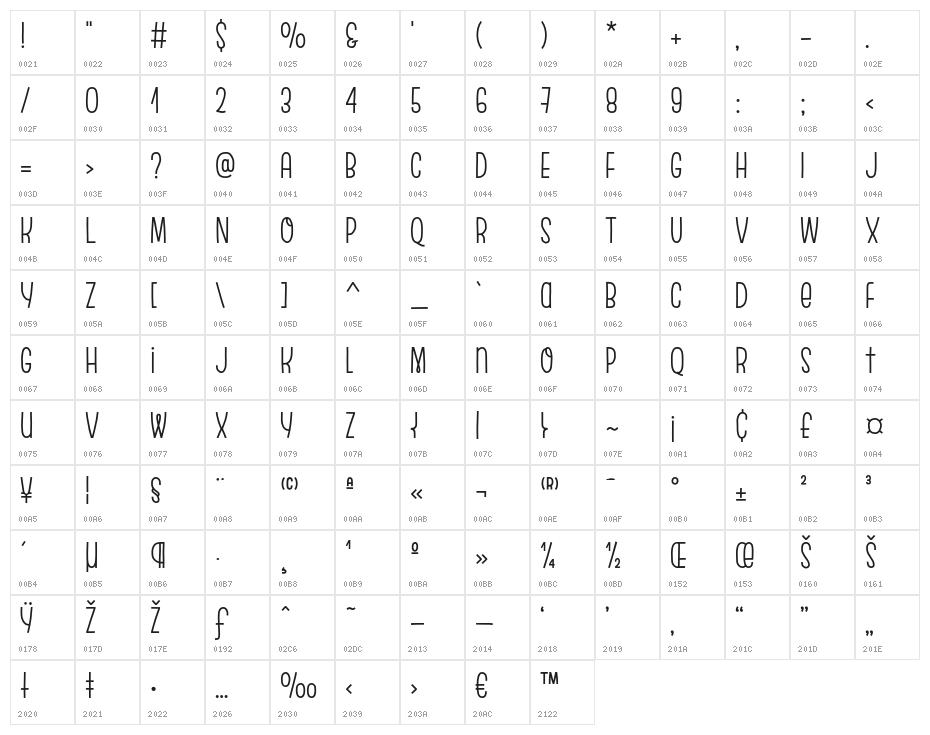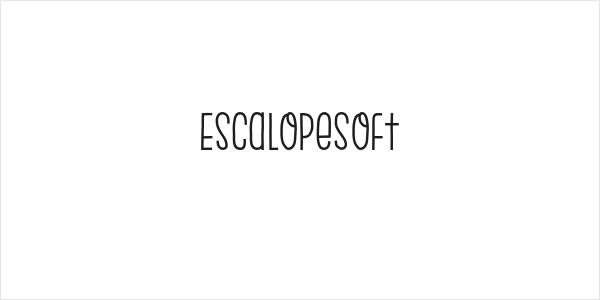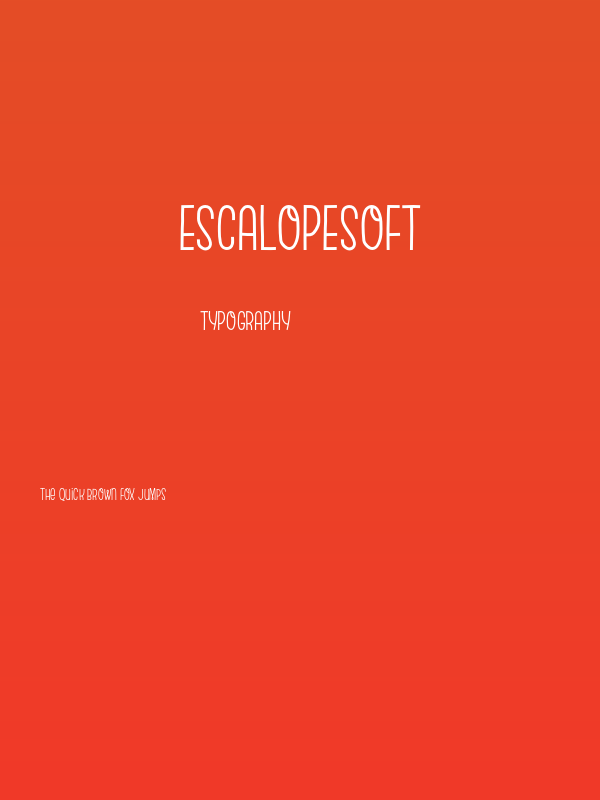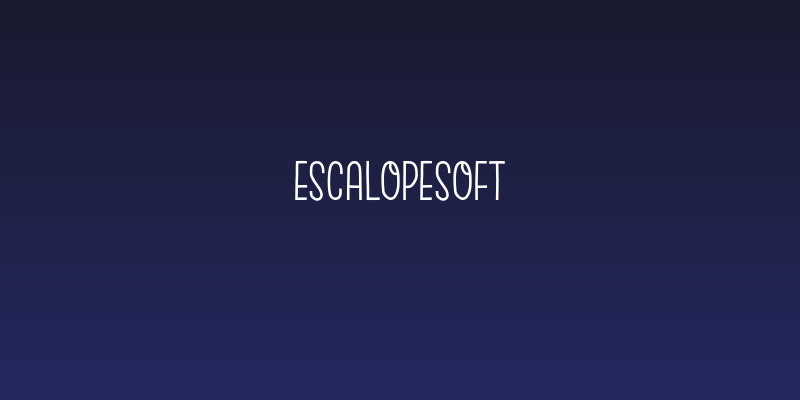
EscalopeSoft Font
EscalopeSoft Description
This font features a playful and modern design with elongated, narrow characters that give it a unique and stylish appearance. The uppercase letters are tall and slender, while the lowercase letters maintain a consistent height, creating a harmonious balance. The numbers are similarly elongated, adding to the cohesive look. The special characters are distinct and well-defined, ensuring clarity and readability. This font's clean lines and contemporary style make it versatile for various design projects.